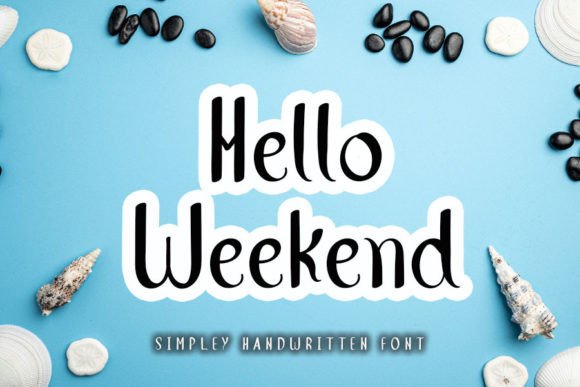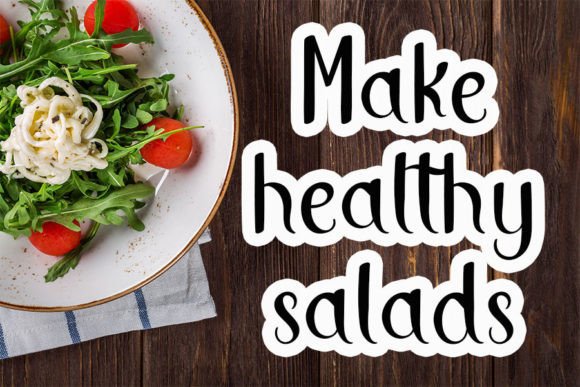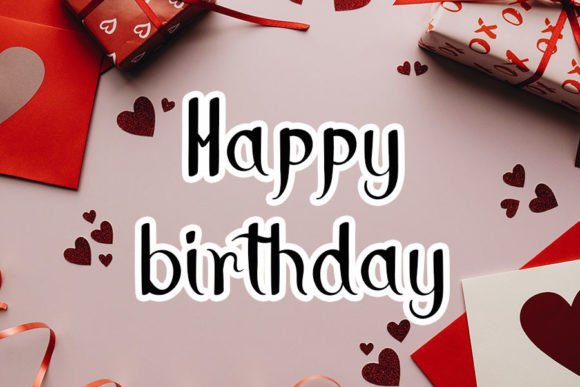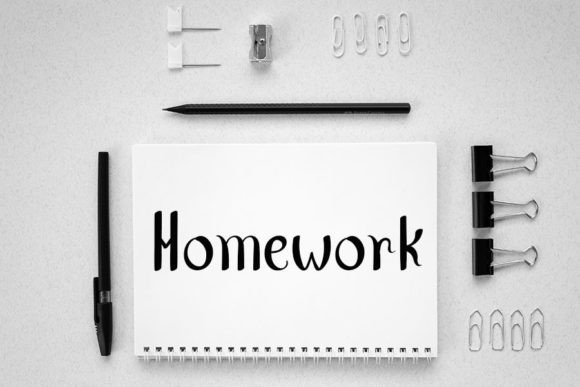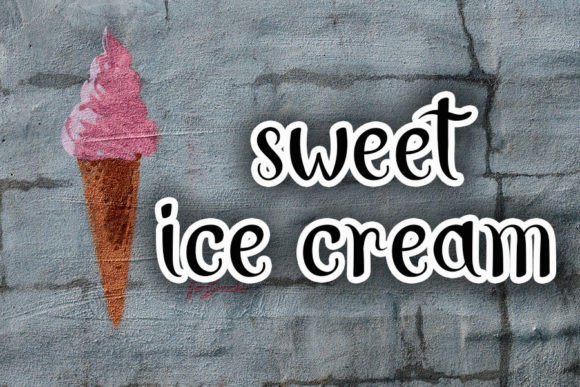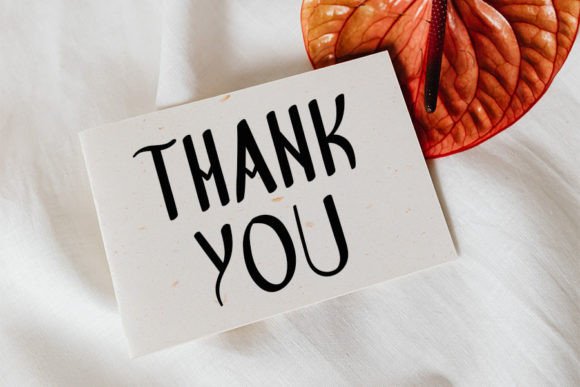
Hello Weekend Font
About Hello Weekend Font
“Hello Weekend” is presented as a friendly handwritten font, thoughtfully designed to become a cherished favorite in your creative projects. This font gracefully retains its classy calligraphic influences while embracing a contemporary and fresh feel. By adding “Hello Weekend” to your designs, you have the opportunity to make them outstanding and infused with a unique charm.
The friendly and handwritten nature of “Hello Weekend” makes it adaptable for a variety of creative applications. Whether you’re working on branding, invitations, posters, or any other project, this font brings a personal and approachable touch.
The balance of classy calligraphic influences with contemporary freshness in “Hello Weekend” gives it a distinctive character. This harmonious blend allows the font to seamlessly fit into different design contexts, offering a timeless yet modern aesthetic.
Incorporating “Hello Weekend” into your creative projects provides an avenue to elevate their visual appeal. The careful design of this font suggests attention to detail, making it a valuable asset to enhance the overall aesthetic of your designs.
In summary, “Hello Weekend” is not just a font; it’s a carefully crafted tool for your creative endeavors. Embrace its friendly and classy calligraphic influences, and let it bring a contemporary and fresh vibe to your designs, ensuring they stand out with an outstanding and charming appeal.